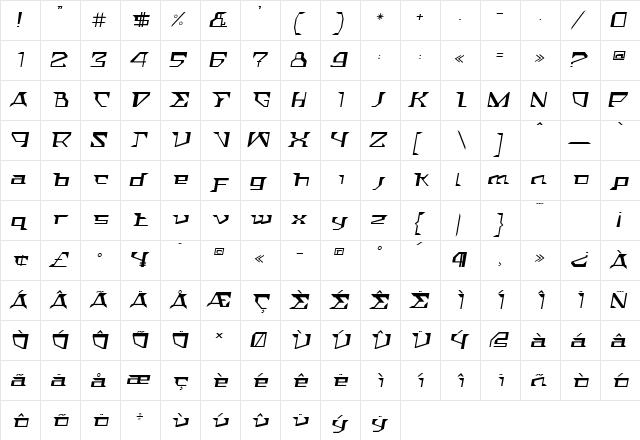
ACTStern Italic
Design Context for ACTStern Typeface
ACTStern is a composed and adaptable typeface that performs quietly and consistently across a wide range of design contexts. The slanted form adds forward momentum and visual energy.